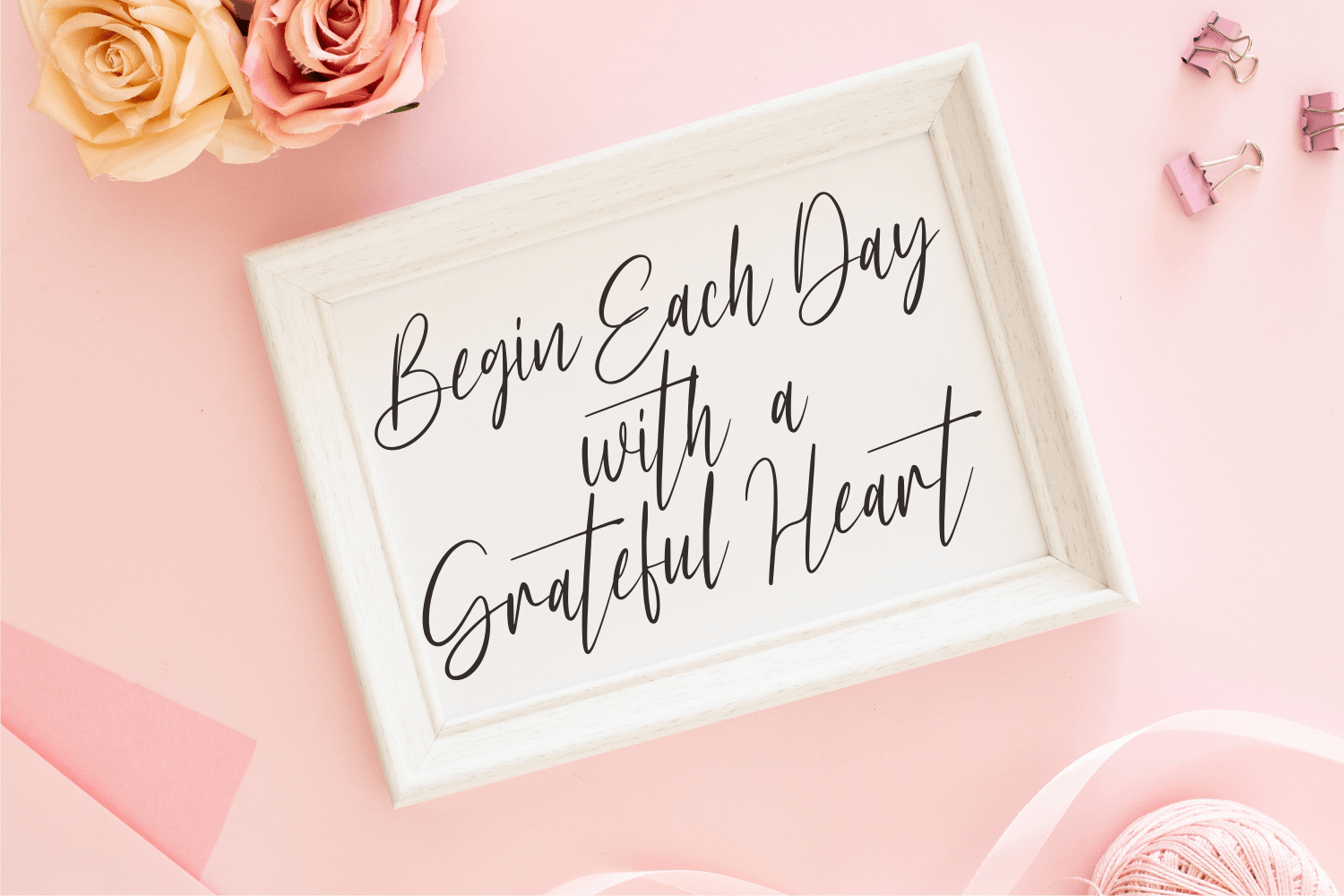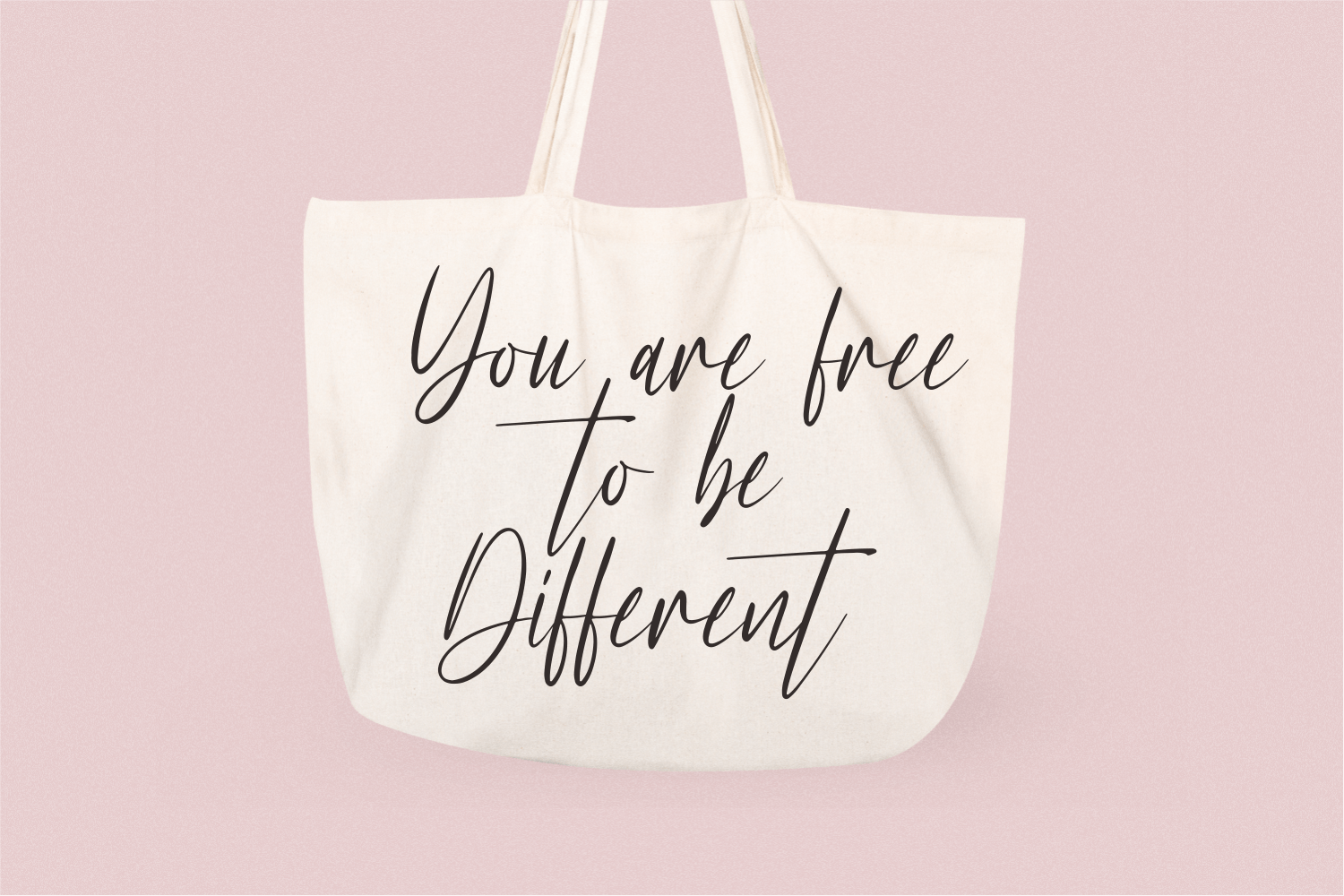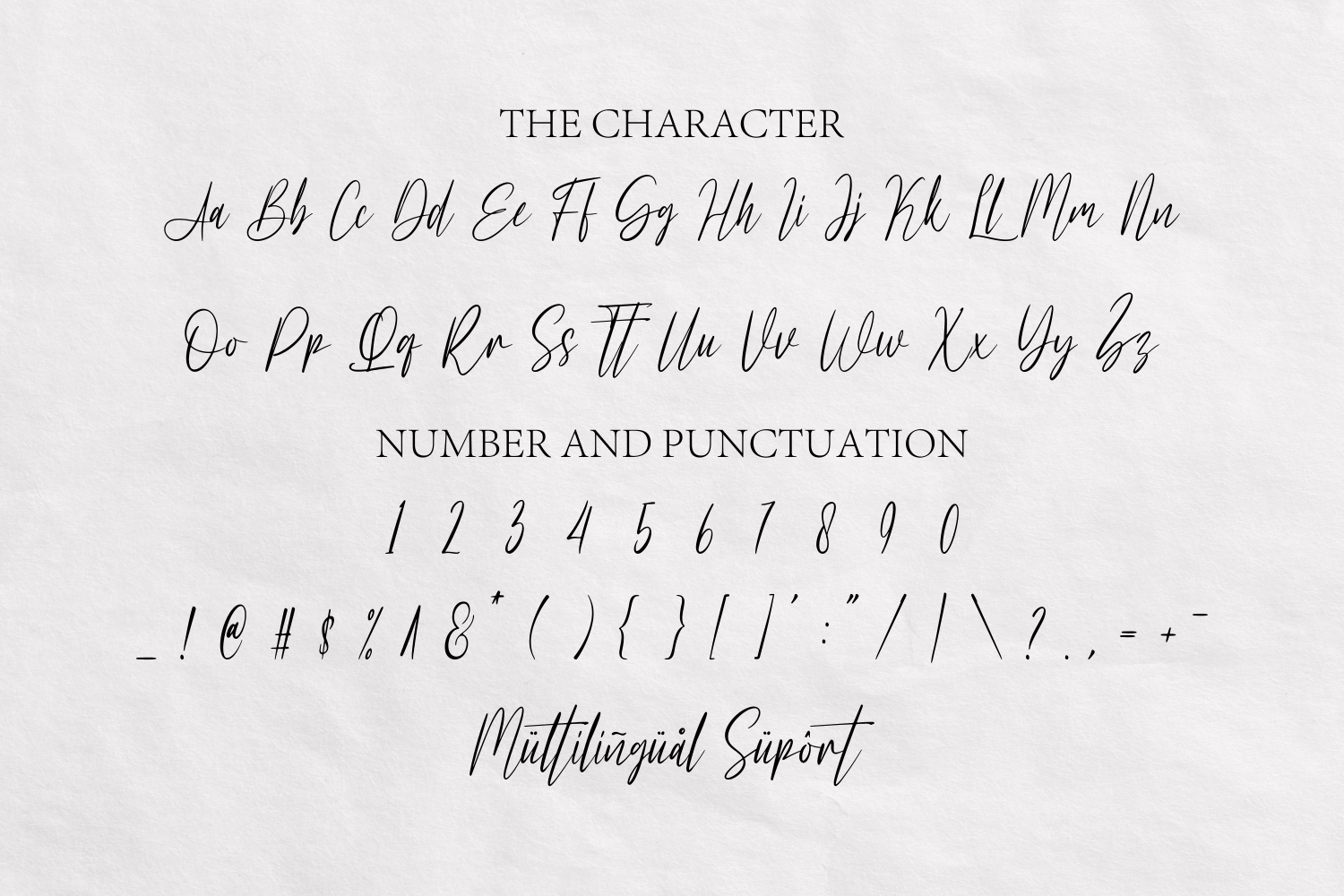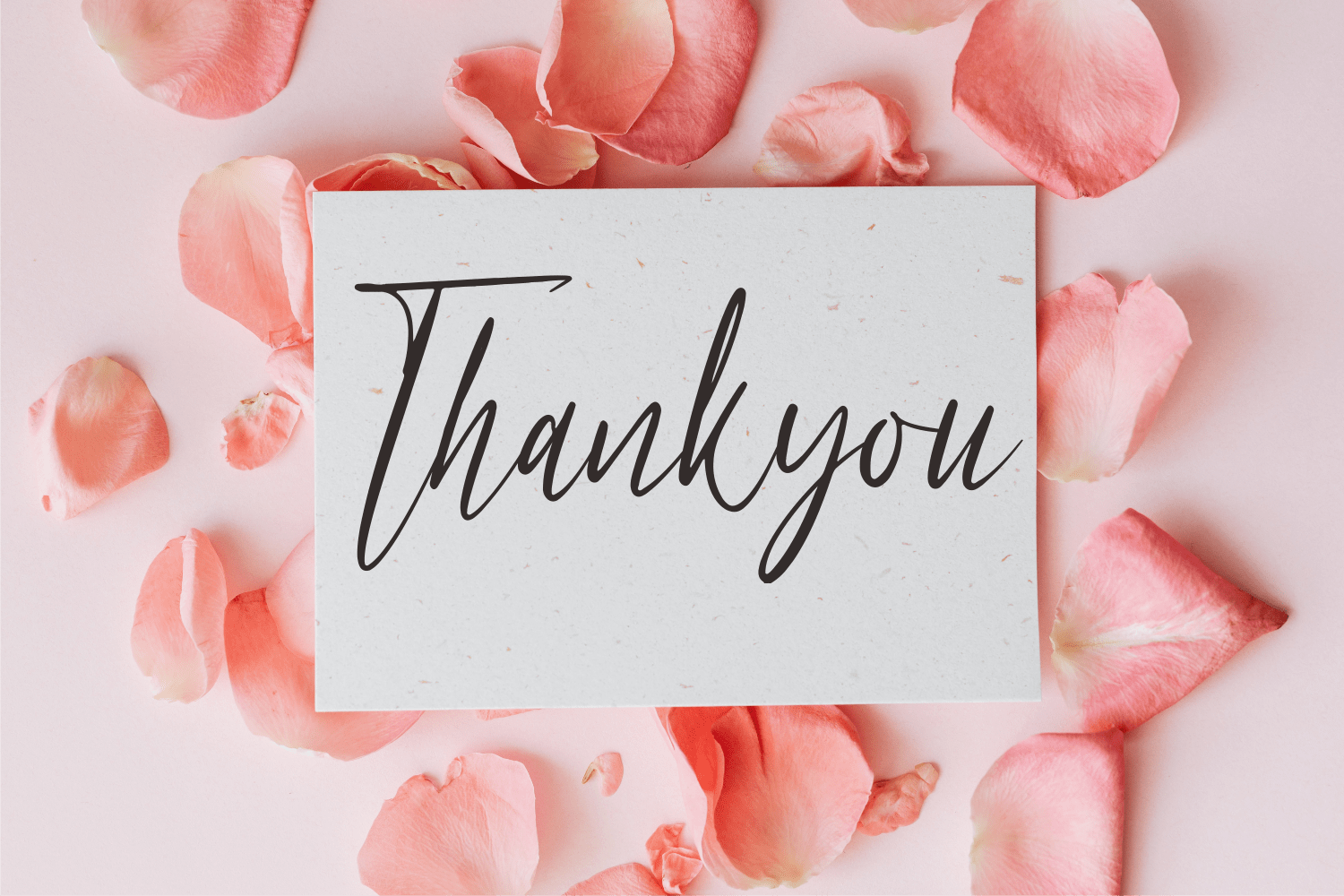
Lovely Dealer Font
Lovely Dealer Script Font is a stylish and dainty script font. It is suitable for any projects such as: logos, branding projects, label, photography, watermark, special events, and all your other lovely projects that need a beautiful script taste.